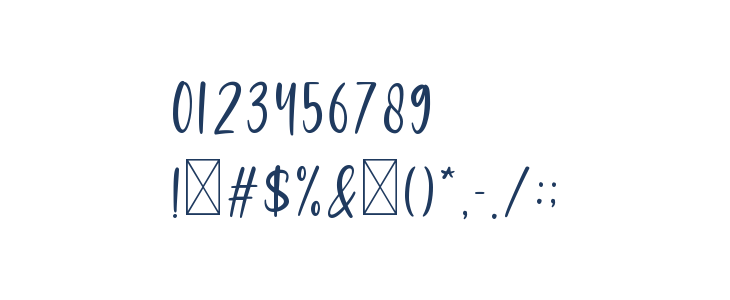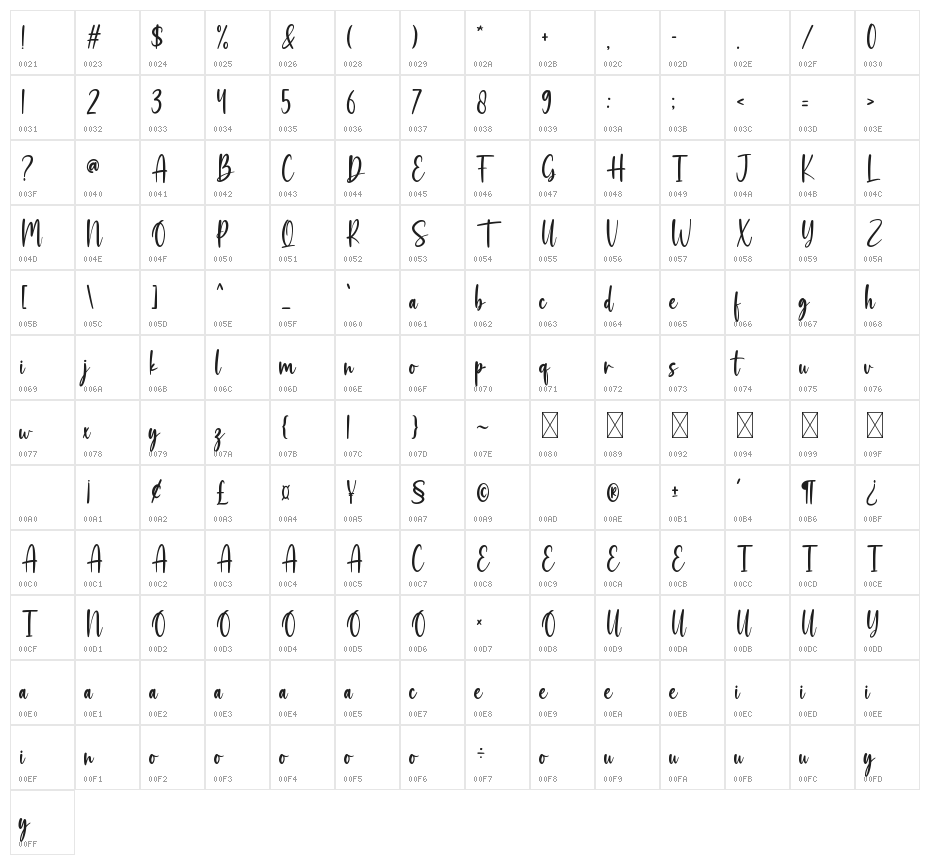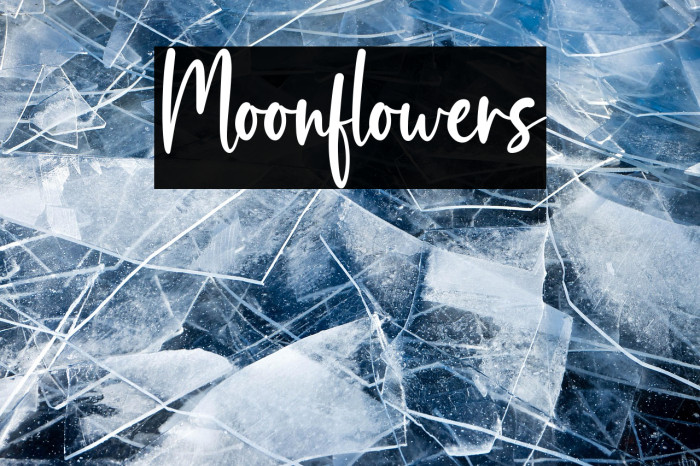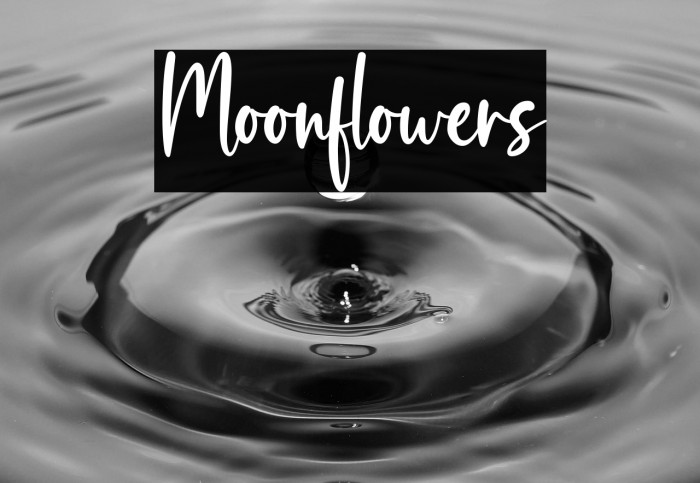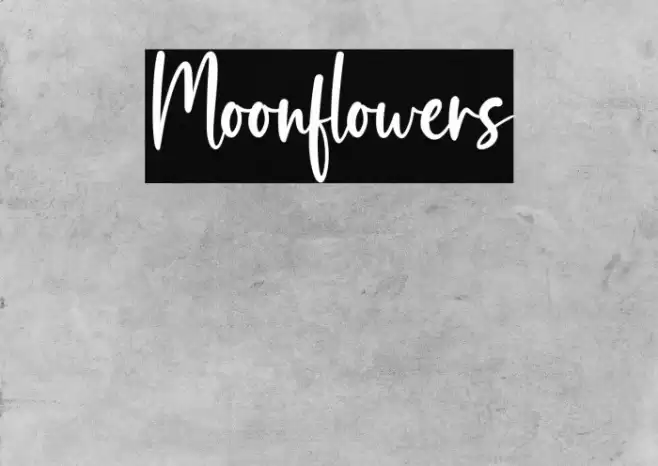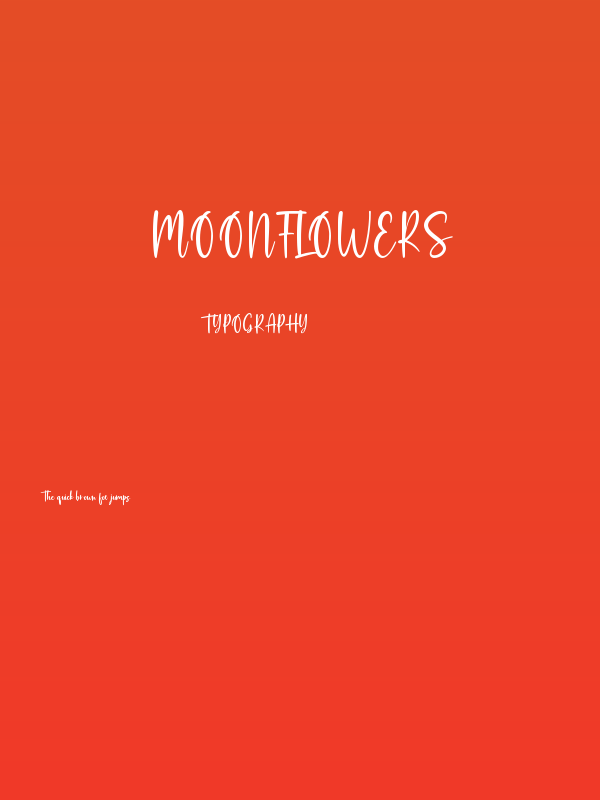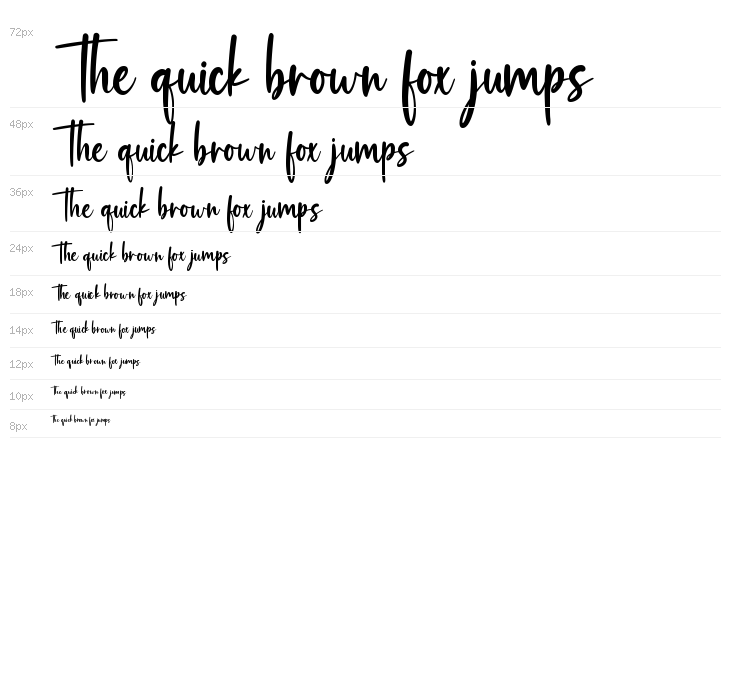
Moonflowers Font
Moonflowers Description
This font features a lively and expressive handwritten style, characterized by its fluid and dynamic strokes. The uppercase letters are bold and slightly slanted, giving a sense of movement and energy. The lowercase letters maintain a consistent flow, with some characters featuring playful loops and curves. The numerals are clear and legible, matching the overall whimsical aesthetic. Special characters are creatively integrated, maintaining the font's cohesive look. This font is perfect for projects that require a personal touch or a creative flair.
| Proposed Projects | Ideal for greeting cards, invitations, branding, and social media graphics. |